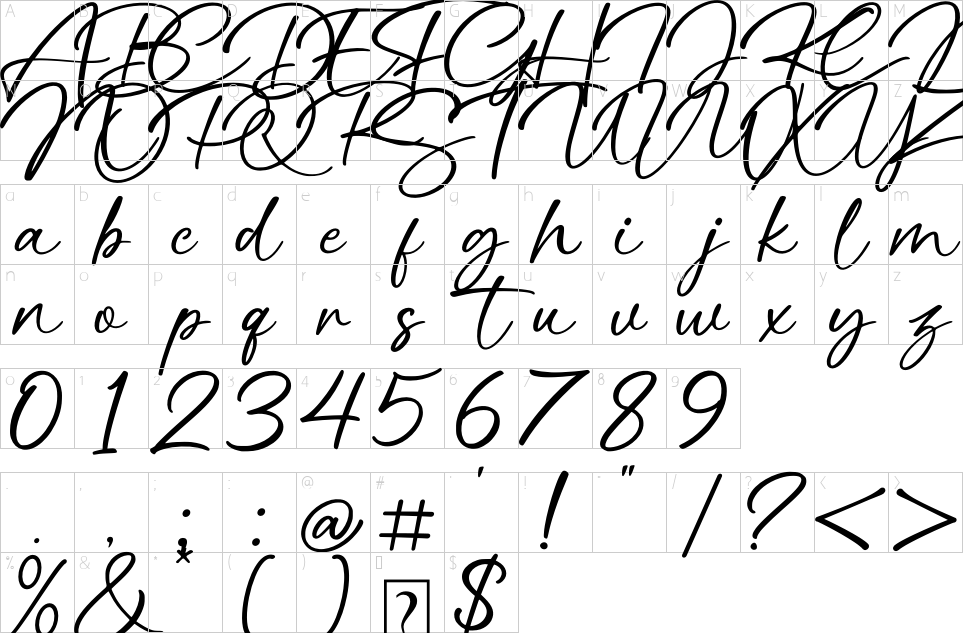
Handgone Font
Designers Notehandgone is a casual handwritten font that flows effortlessly, just like a love letter written by hand. Purchase a commercial license here: https://basnistudio.com/product/handgone-a-casual-handwritten/ For Custom license, contact me via email If you have any questions please don’t hesitate to Contact me at  And check our Site http://www.Basnistudio.com And follow my Instagram for update: @basni.std , I really appreciate your donations. Thank you :) Character MapFile Contents